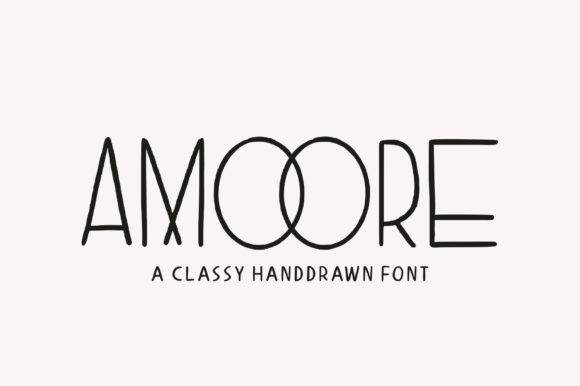
The Amoore Font: A Designer’s New Best Friend
I still remember the frustration of working on a project, hours spent perfecting every detail, only to realize that the font I chose wasn’t quite right. The text looked bland, and my design felt flat. It was as if I was trying to build a house on shaky ground. I’ve been there, and I’m sure many of you have too. That’s why I’m excited to share with you a font that has become a staple in my design toolkit: Amoore.
Amoore: The Perfect Blend of Minimalism and Versatility
Amoore is a minimal and neat sans serif font that can easily be matched to an incredibly large set of projects. Its clean lines and simple shapes make it a versatile choice for designers, crafters, and creative hobbyists alike. Whether you’re working on a logo, a brochure, or a social media post, Amoore can help make your creative ideas stand out.
What I Love About Amoore ✨
• ✅ Clean and Minimal Design: Amoore’s simplicity is its greatest strength. The font is easy on the eyes and perfect for designs that require a modern, sleek look.
• ✅ Highly Versatile: From headings to body text, Amoore works beautifully in a variety of contexts.
• ✅ Easy to Read: The font’s clear and simple design makes it highly legible, even at smaller sizes.
• ⚠️ Limited Extras: Amoore is a straightforward font without many frills. If you’re looking for a font with extensive stylistic alternates or complex OpenType features, you might find Amoore a bit limited.
• ⚠️ Not Ideal for Body Text in Long Documents: While Amoore is great for short paragraphs and headings, it might not be the best choice for long-form body text due to its minimalist design.
The Story Behind Amoore: Designer Inspiration
Amoore was created with the goal of providing a clean, versatile font that could be used across a wide range of projects. Inspired by modernist design principles, Amoore’s creator aimed to craft a font that was both timeless and contemporary. The result is a font that feels both familiar and fresh.
Author Garisman Studio
Q: Is Amoore suitable for body text?
A: While Amoore is highly legible, its minimalist design makes it more suited for headings and short paragraphs. For long-form body text, you might prefer a font with more character.
Q: Does Amoore support OpenType features?
A: Amoore offers basic support for OpenType features. For advanced typographic control, you might find some limitations compared to more complex fonts.